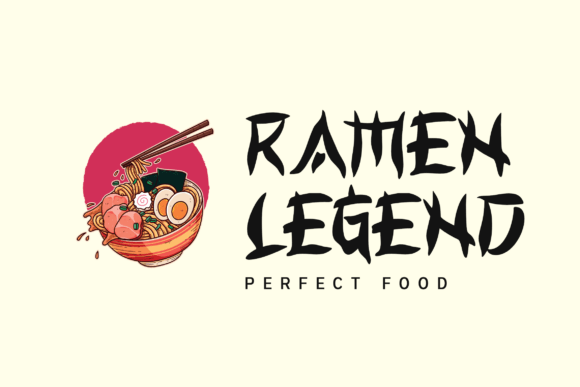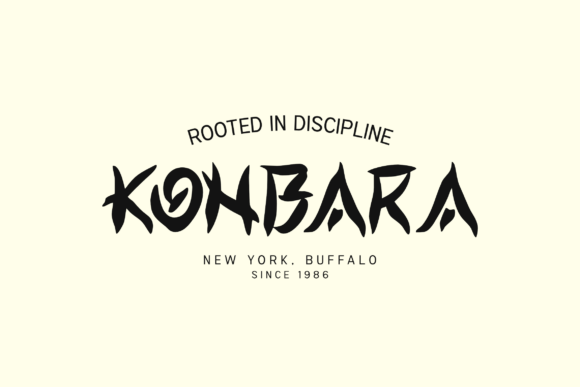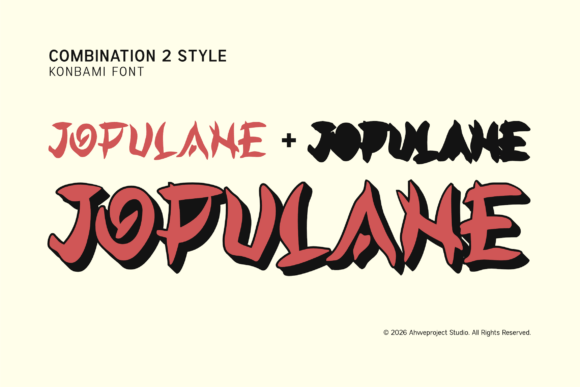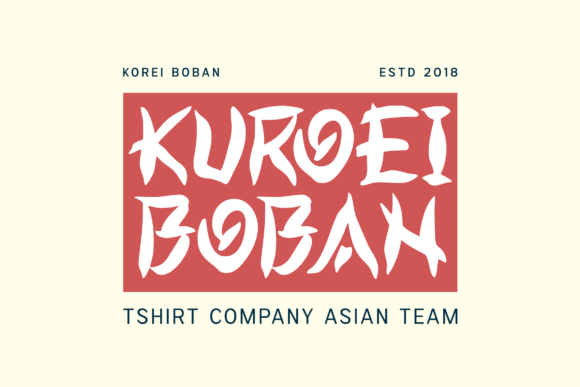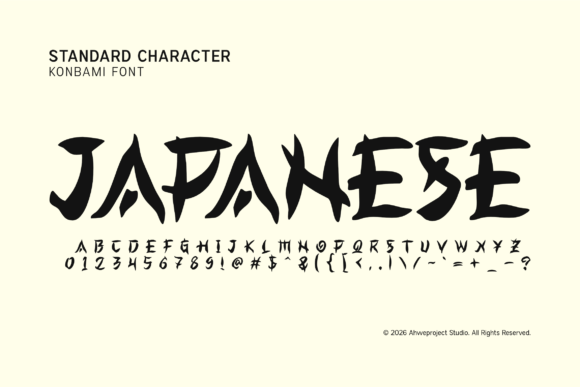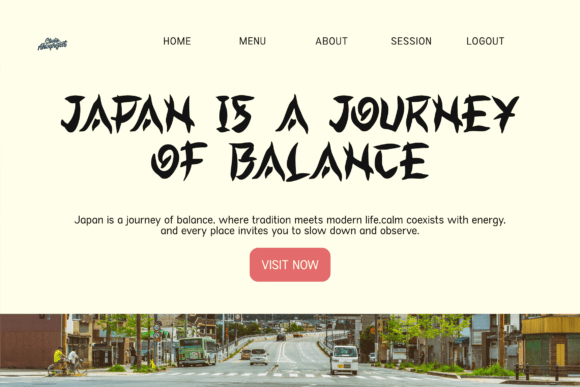
Introduction to Konbami Font
Have you ever stared at a blank canvas, waiting for the perfect design to emerge? That’s where the Konbami Font comes in – a game-changing design resource that’s sure to give your creative project the bold, eye-catching kick it needs. Inspired by the mystical world of samurai and modern tribal aesthetics, this high-quality font is designed to deliver instant visual impact and make your designs stand out from the crowd.
Whether you’re a seasoned designer or just starting out, the Konbami Font is a valuable addition to your design toolkit. With its bold, expressive Japanese-style typography, it’s perfect for logos, titles, and any design that demands a powerful, dark, and eye-catching presence. And the best part? It’s available for free download, complete with a transparent background that’s easy to work with.
So why settle for a bland, generic font when you can unleash the raw energy of the Konbami Font on your next design project? Let’s dive in and explore what makes this design resource so special.
Key Features of Konbami Font
- Unique, hand-drawn design with a mix of modern and traditional elements, ideal for creative projects.
- High-quality design, suitable for a wide range of applications, including branding, advertising, and editorial content.
- Comes with a comprehensive character set, including uppercase and lowercase letters, numbers, and punctuation marks.
Honest Review: Konbami Font
I recently stumbled upon the Konbami Font while searching for free download fonts to enhance my design projects. The first thing that caught my attention was its high quality and versatility, making it an excellent design resource for creative projects.
Here are some of the things that work well with the Konbami Font:
- ✨ Large character set: The font has a wide range of characters, including uppercase and lowercase letters, numbers, and symbols, making it perfect for any creative project.
- ✨ Transparent background: This feature allows for seamless integration with any design element, giving you more flexibility in your creative process.
- ✨ Unique design: The font’s unique design makes it stand out from other fonts, adding a touch of personality to your designs.
- ⚠️ Limited font styles: Compared to other fonts, the Konbami Font has a limited number of font styles, which may not be ideal for designers who prefer a wide range of options.
Tips for Getting the Most Out of Konbami Font
For the best results, use the Konbami Font on a transparent background to allow for maximum flexibility in your design. You can also experiment with different font sizes, colors, and combinations to create unique and creative effects.
The Konbami Font is ideal for use in creative projects, such as logos, branding materials, and marketing materials. Its high-quality design and transparent background make it a versatile resource for a wide range of applications.